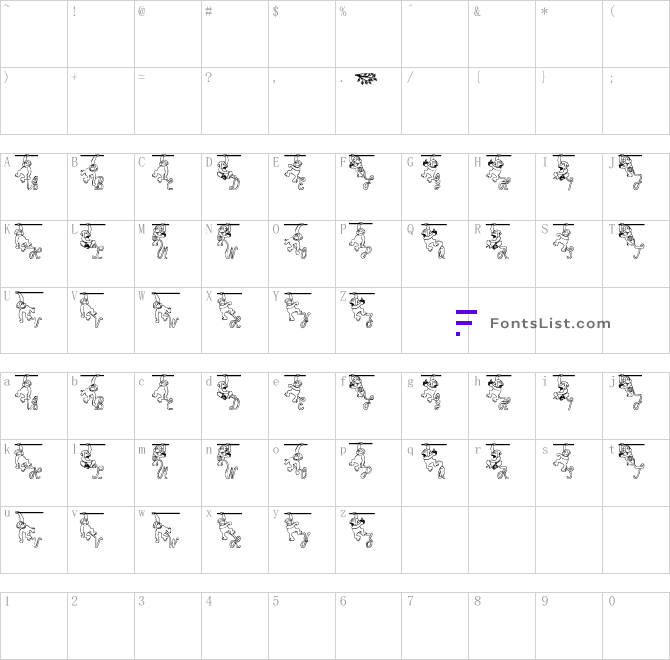
- Font Name:Affenschaukel
Affenschaukel.ttf is a very beautiful artistic font, Affenschaukel.ttf is widely used in the design and printing of various books and pictures,Affenschaukel.ttf has a strong visual impact,Affenschaukel.ttf is a commonly used font in newspapers, magazines and books, and is used in posters, e-commerce Poster design, store design, logo design, font design and other fields.Affenschaukel.